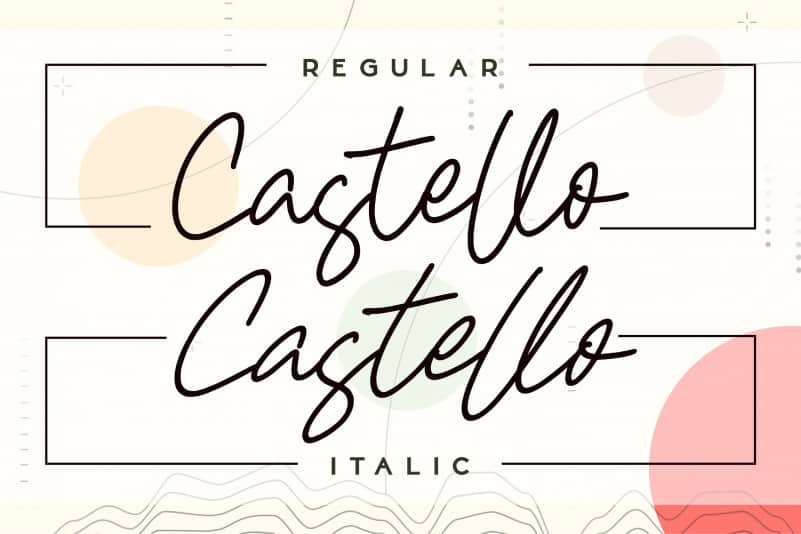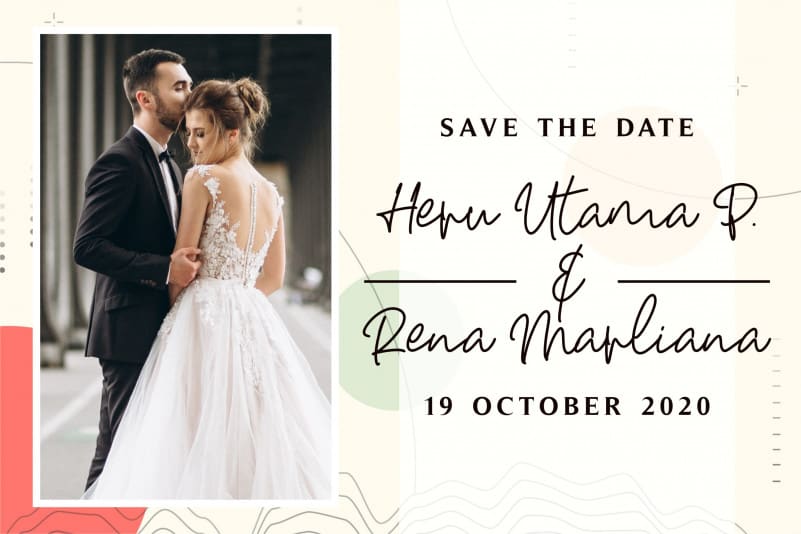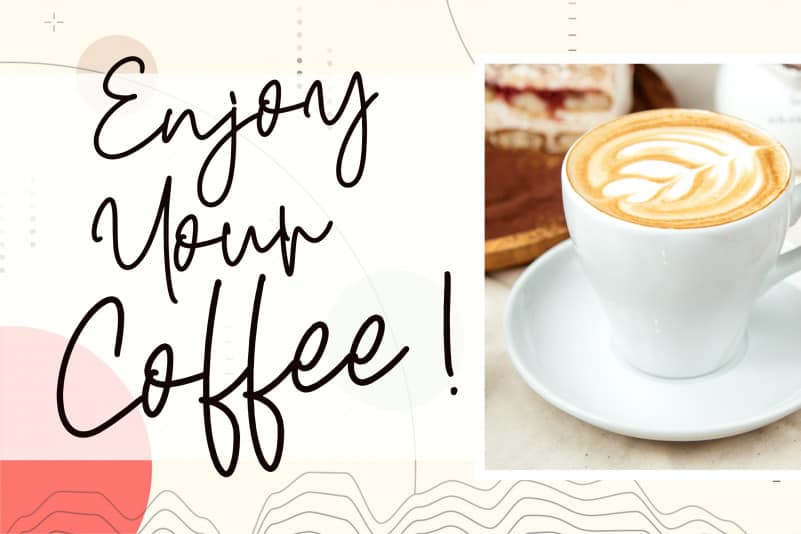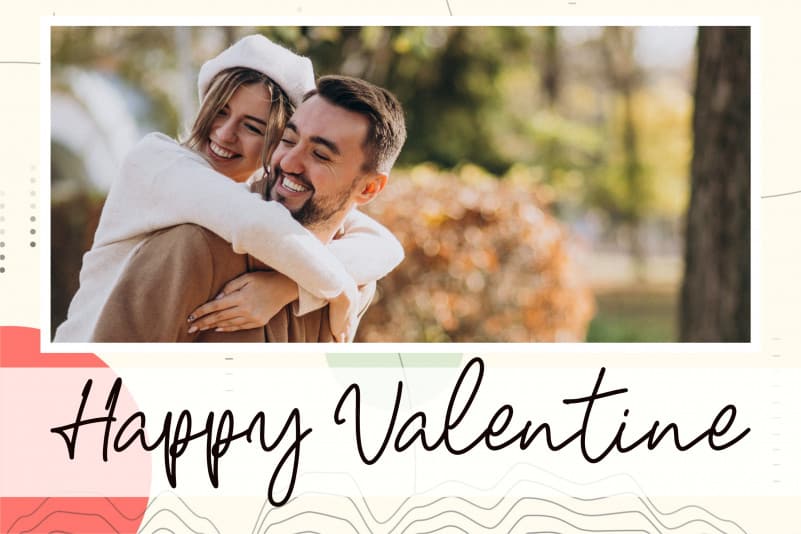
Castello Handwritten Font
Castello Handwritten Font is a thin and classic handwritten font. This font is suitable for any projects such as: logos, branding projects, homeware designs, product packaging, mugs, quotes, posters, shopping bags, t-shirts, book covers, name card, invitation cards, greeting cards, label, photography, watermark, special events, and all your other lovely projects that need a beautiful Signature taste.